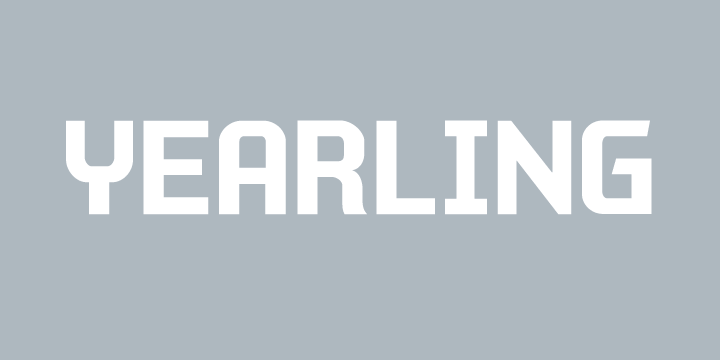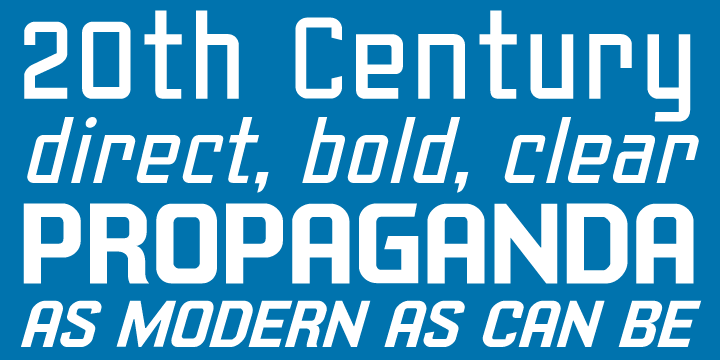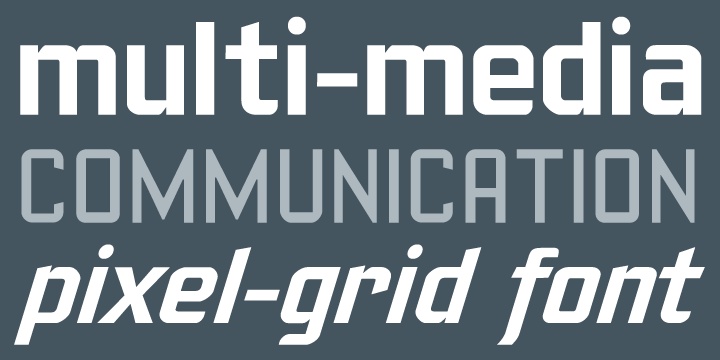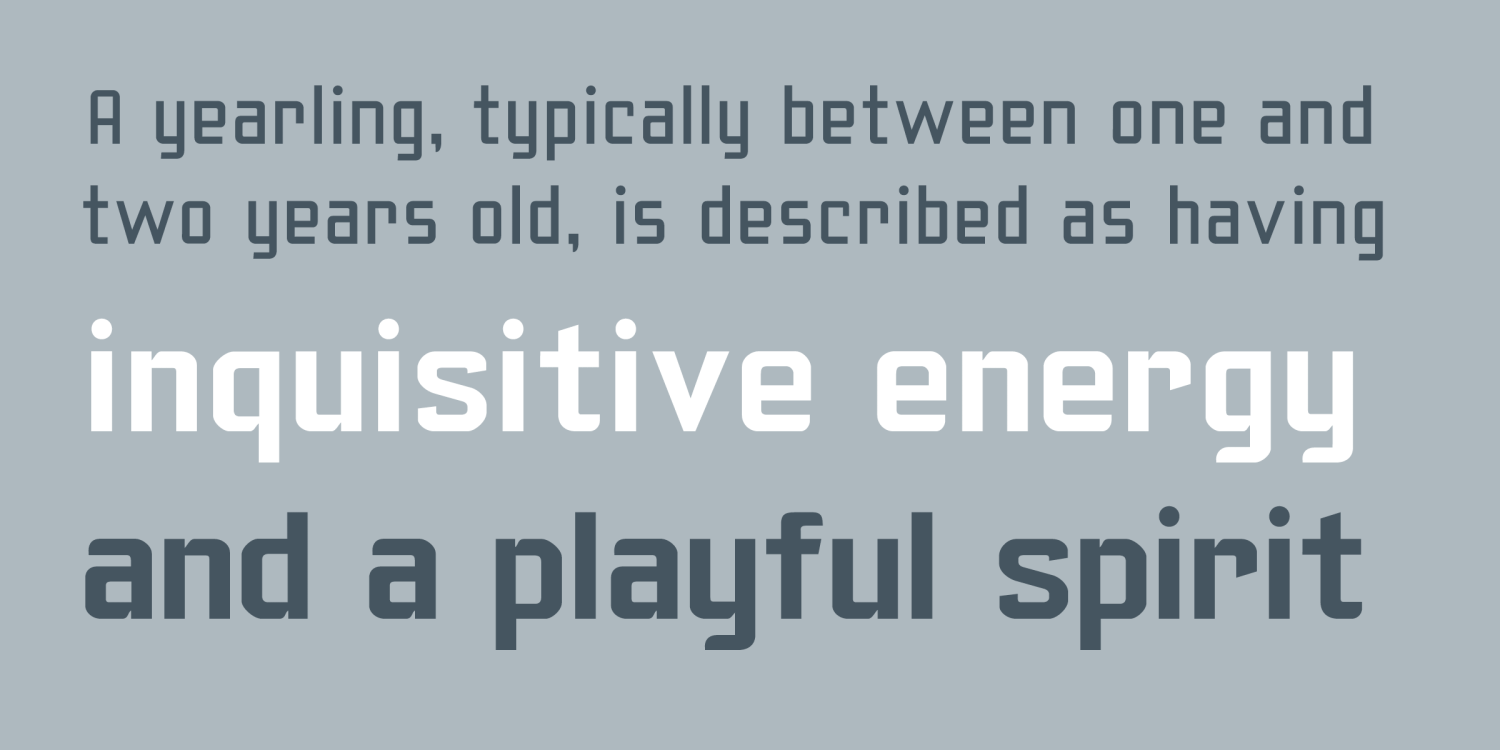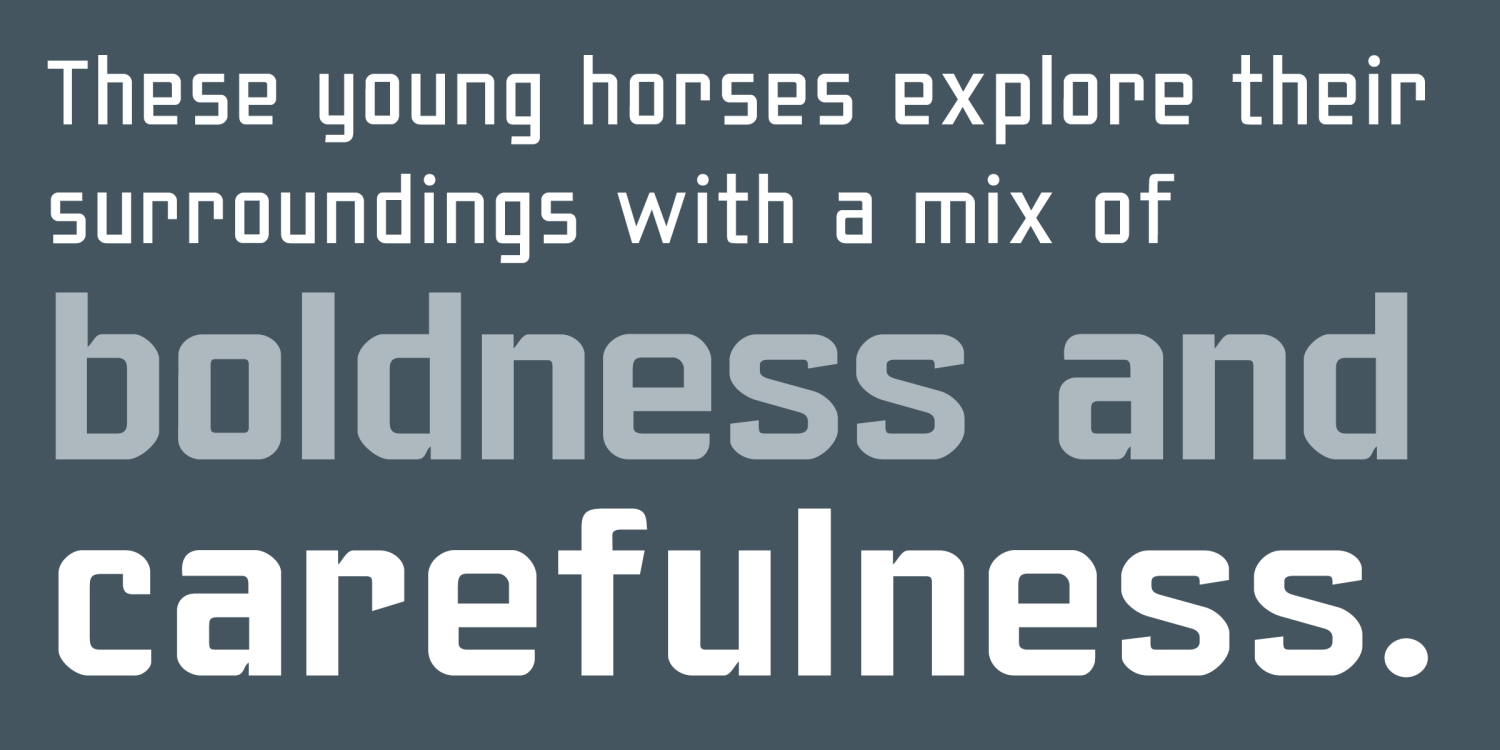
Yearling
Font Family by Chank Co
The Yearling fonts are inspired by old propaganda poster letter forms of the 20th century. However, they're also intended to work well in modern communications as well. Yearling was originally created to look good via fax (LOL!), and because it's based on a very rigid grid (like pixels on your screen), this font family also works well on smartphones and modern tablets, too. Short on curves and diagonals, these letterforms are a celebration of horizontal and vertical. But most importantly, this font is simple and clean and clear and direct. Nothing fancy here, just the facts, as modern as can be. Recently updated with extra language support for many voices across the world.